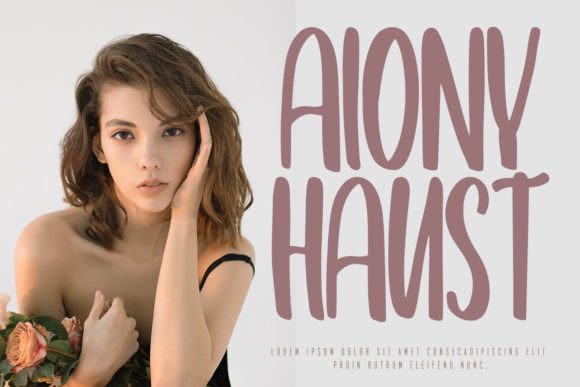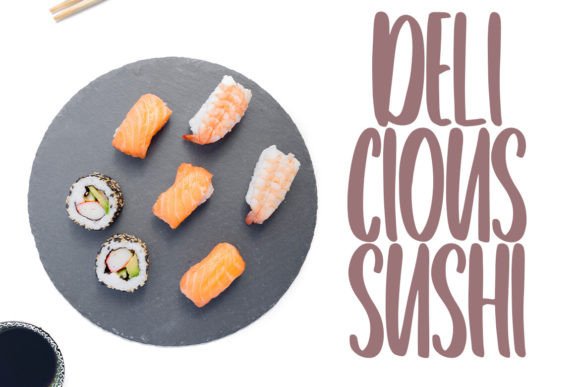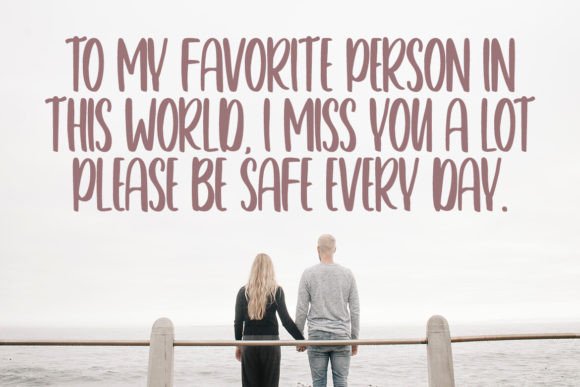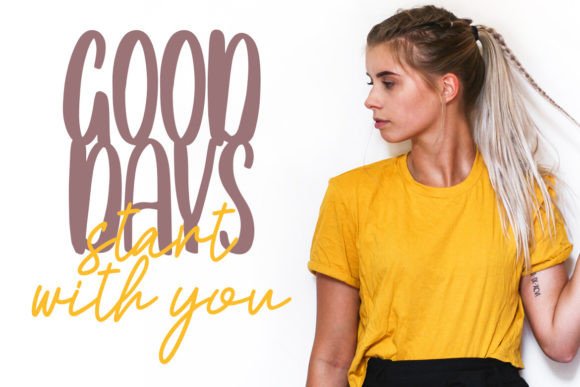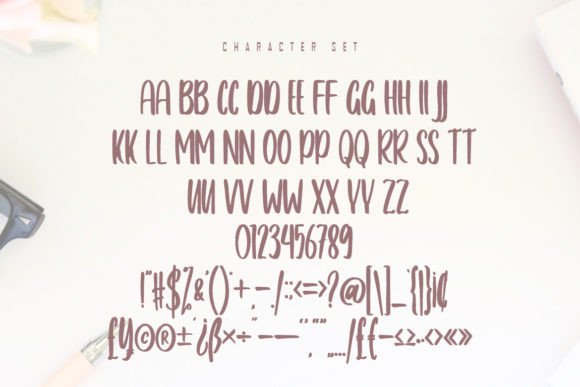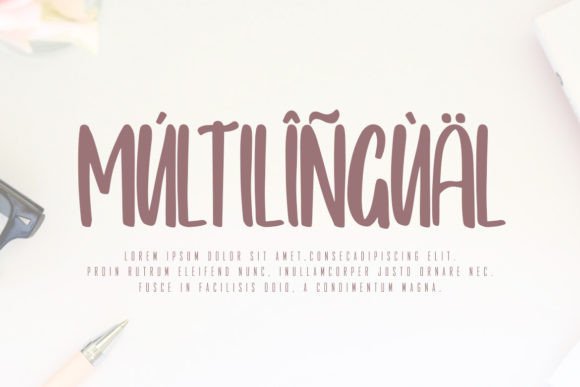
Introduction to Hollisa Font
Hollisa sans serif font.
It has a elegant, classy look and modern It’s a great font for fashion, projects, signature, logo, branding, social media.
Key Features of Hollisa Font
Why Choose Hollisa Font?
Hollisa Font offers exceptional quality and versatility, making it a valuable addition to your design toolkit. Whether you’re creating for personal projects or commercial use, Hollisa Font delivers professional results.